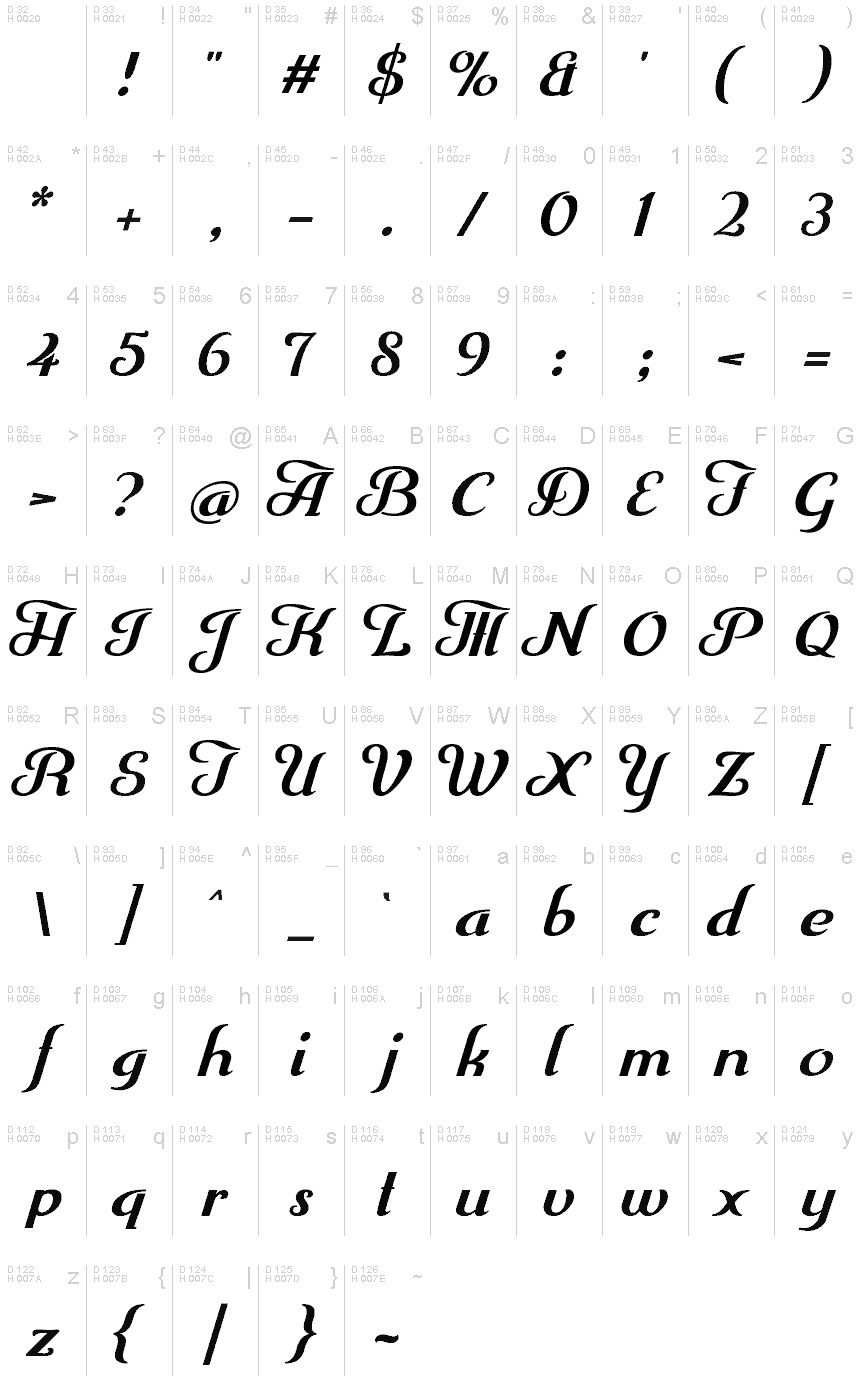
Trumpit
Trumpit, crafted by the talented Typesgal, is a calligraphic font that exudes elegance and flair. With its sweeping curves and fine lines, this typeface brings a touch of sophistication to any project. Its fluidity resembles traditional calligraphy, yet with a modern twist that makes it versatile for both print and digital media.
The swashes and flourishes inherent in Trumpit's design lend it an artistic charm that can elevate wedding invitations, branding materials, or literary works into something truly memorable. This font's aesthetic appeal lies in its ability to strike a perfect balance between decorative elements and readability—a combination that ensures your message is not just seen but felt.
Perfect for designers seeking to impart a sense of individuality and style, Trumpit is well-suited for applications where personality is paramount. Whether you're crafting an intimate personal letter or setting the tone for upscale marketing collateral, Typesgal's creation stands ready to infuse your vision with its distinctive beauty.